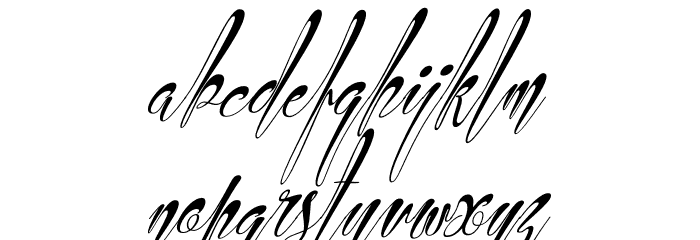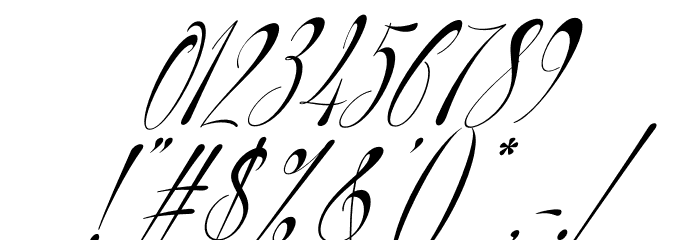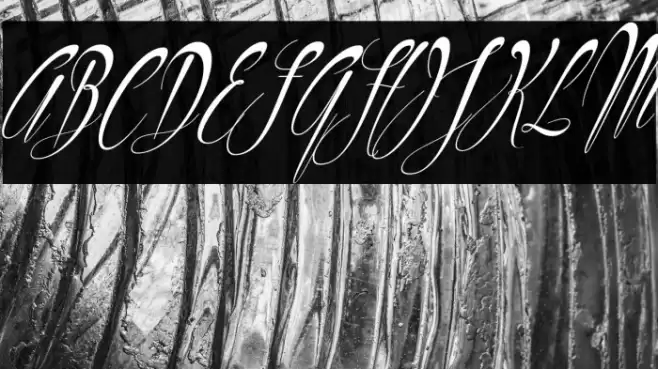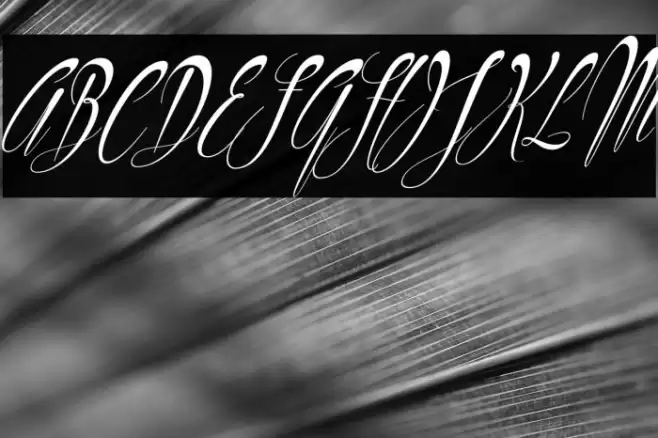
Philoshopy-Italic Font
This font features an elegant and flowing script style, characterized by its italicized and cursive appearance. The letters are elongated with graceful curves and loops, giving it a sophisticated and artistic flair. The uppercase letters are particularly ornate, with exaggerated swashes and flourishes that add a sense of drama and movement. The lowercase letters maintain a consistent style, complementing the uppercase with their own subtle embellishments. The numerals and special characters follow the same aesthetic, ensuring a cohesive look across all elements. This font is ideal for projects that require a touch of elegance and refinement.
An elegant, italicized script font with flowing curves and ornate details.
- Font: Philoshopy-Italic
- Proposed Projects: Wedding invitations, luxury branding, elegant signage, artistic posters.
- Category: Script
- Overall Style: Elegant
- Use Case: Logos, Invitations, Decorative text